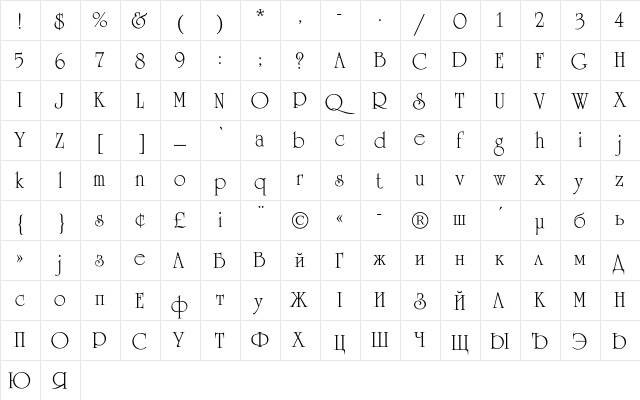
AGReverence Regular
Design Context for AGReverence Typeface
AGReverence takes a measured approach to typography — its balanced proportions and neutral character make it a reliable workhorse for both digital and print work.